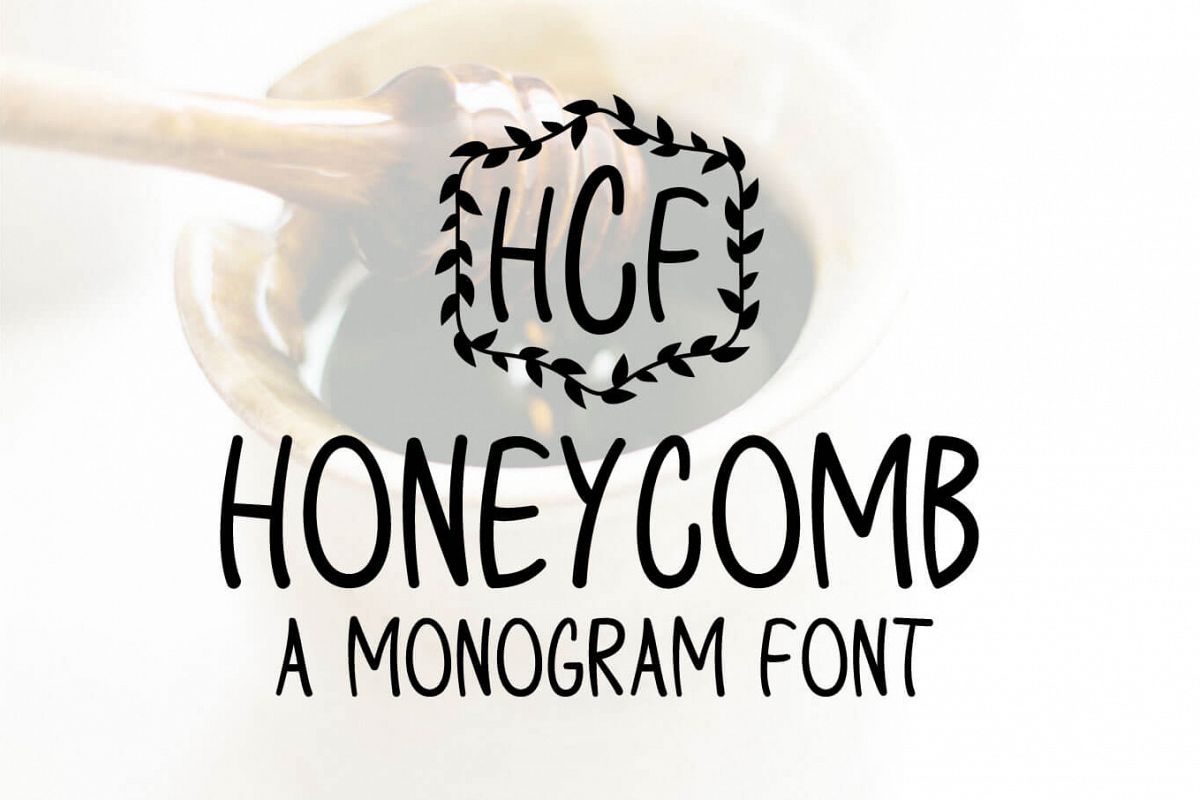
Honeycomb Monogram can help you create personalized shirts, signs, tags, and more! You'll be able to monogram items for your customers plus make customized business products for yourself.
- Uppercase: A-Z
- Lowercase: A-Z - same as uppercase but smaller to easily create monograms!
- 10 Monogram Frames - Choose a number 0-9 to select a frame!
Normally, monogram order is: First Initial, Last Initial, Middle Initial. With this font, use a lowercase letter, uppercase letter, then lowercase letter, aAa, this will create your perfect monogram! Now all you need to do is browse the monogram frames provided by choosing numbers 0-9 and size accordingly. You can also use any frames that you already have. Be creative & enjoy!